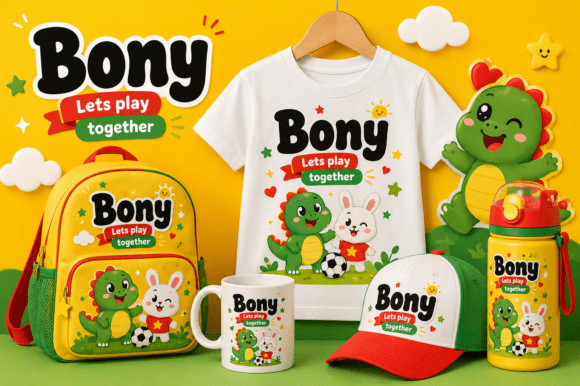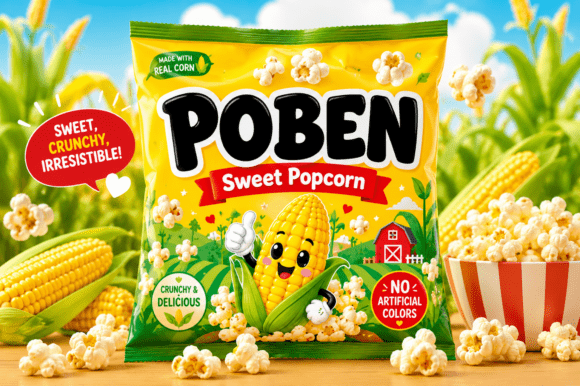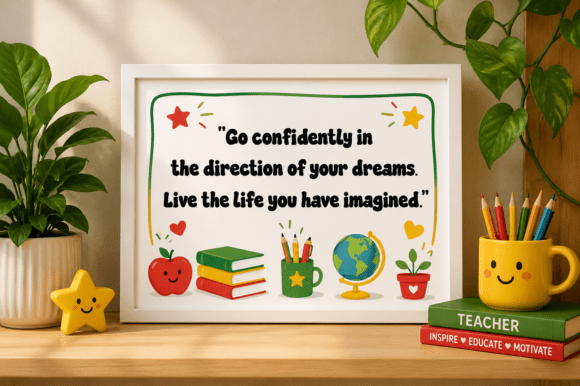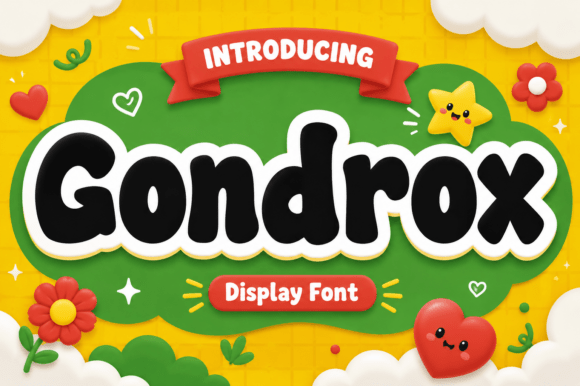
Introducing Gondrox Font: The Ultimate Display Font for Joyful Designs
Are you tired of using the same old fonts for your designs? Look no further! We’re excited to introduce Gondrox, a vibrant and daring display font that’s sure to bring a smile to your audience’s faces. With its softly curved edges and endearing hand-sketched quality, Gondrox exudes warmth and vivacity, making it the perfect choice for a wide range of design projects.
The Inspiration Behind Gondrox
Gondrox is inspired by the jovial bubble shapes that bring joy to children’s eyes. The font’s creator aimed to capture the playful and carefree essence of childhood, infusing it with a sense of friendliness and approachability. The result is a font that’s both captivating and homely, with sturdy, organic brush strokes and delightfully uneven formations that give it a unique aesthetic.
Key Features of Gondrox Font
- Softly Curved Edges: Gondrox boasts softly curved edges that give it a smooth, rounded look. This feature makes it perfect for designs that require a friendly and approachable tone.
- Hand-Sketched Quality: The font’s hand-sketched quality gives it a personal touch, making it feel more relatable and engaging.
- Sturdy, Organic Brush Strokes: The font’s brush strokes are sturdy and organic, lending it a sense of authenticity and character.
- Delightfully Uneven Formations: Gondrox’s uneven formations add to its charm, giving it a playful and whimsical feel.
Gondrox is an incredibly versatile font that’s suitable for a wide range of design projects. Here are some ideas to get you started:
- Children’s Branding: Gondrox is an excellent choice for children’s branding, as it exudes a sense of fun and playfulness that’s sure to appeal to young audiences.
- Snack Packaging Designs: The font’s friendly and approachable tone makes it perfect for snack packaging designs that require a fun and eye-catching look.
- Catchy Posters: Gondrox is ideal for creating catchy posters that grab attention and leave a lasting impression.
- Distinctive Logos: The font’s unique aesthetic makes it an excellent choice for creating distinctive logos that stand out from the crowd.
- Whimsically Engaging Headlines: Gondrox is perfect for creating whimsically engaging headlines that add a touch of personality to your designs.
Why Choose Gondrox Font?
So, why choose Gondrox font for your next design project? Here are just a few reasons:
- Friendliness: Gondrox charms observers with its irresistibly joyful and bubbly personality, making it perfect for designs that require a friendly tone.
- Uniqueness: The font’s unique aesthetic sets it apart from other display fonts, ensuring your designs stand out from the crowd.
- Versatility: Gondrox is incredibly versatile, making it suitable for a wide range of design projects.
In conclusion, Gondrox font is an excellent choice for designers and crafters looking to add a touch of joy and playfulness to their designs. With its softly curved edges, endearing hand-sketched quality, and sturdy, organic brush strokes, Gondrox is sure to charm your audience and leave a lasting impression. So why not give Gondrox a try and see how it can elevate your designs to the next level?